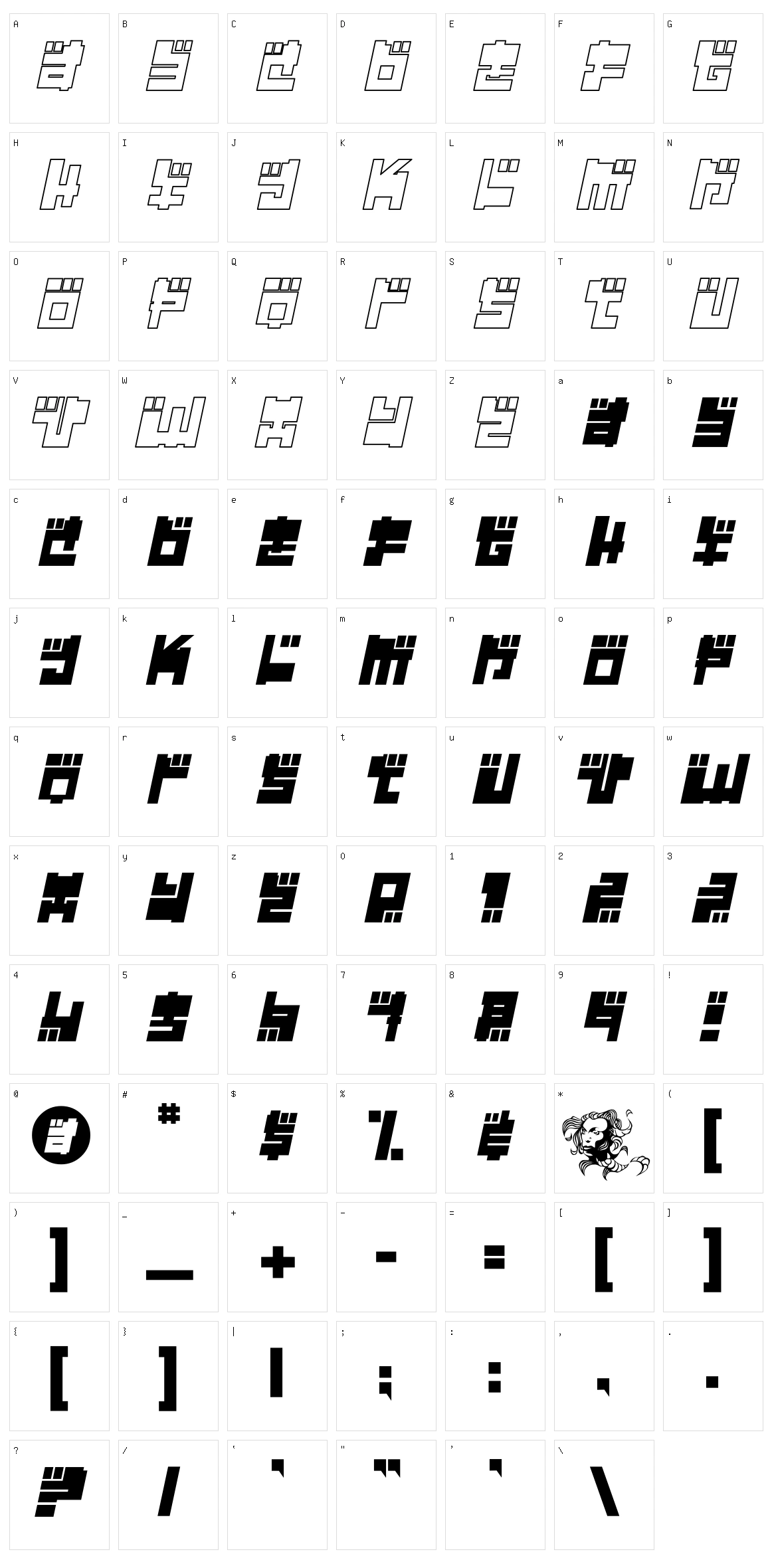
Year 2000 Replicant
Designed by: ChaosFonts
Replicant was selected from the Chaos Fonts collection to represent Chaos Fonts for the year 2000 Font contest organized by www.point-central.com
Y2K Replicant was inspired by Bladerunner, the Motion Picture.
Year 2000 Replicant Character Set